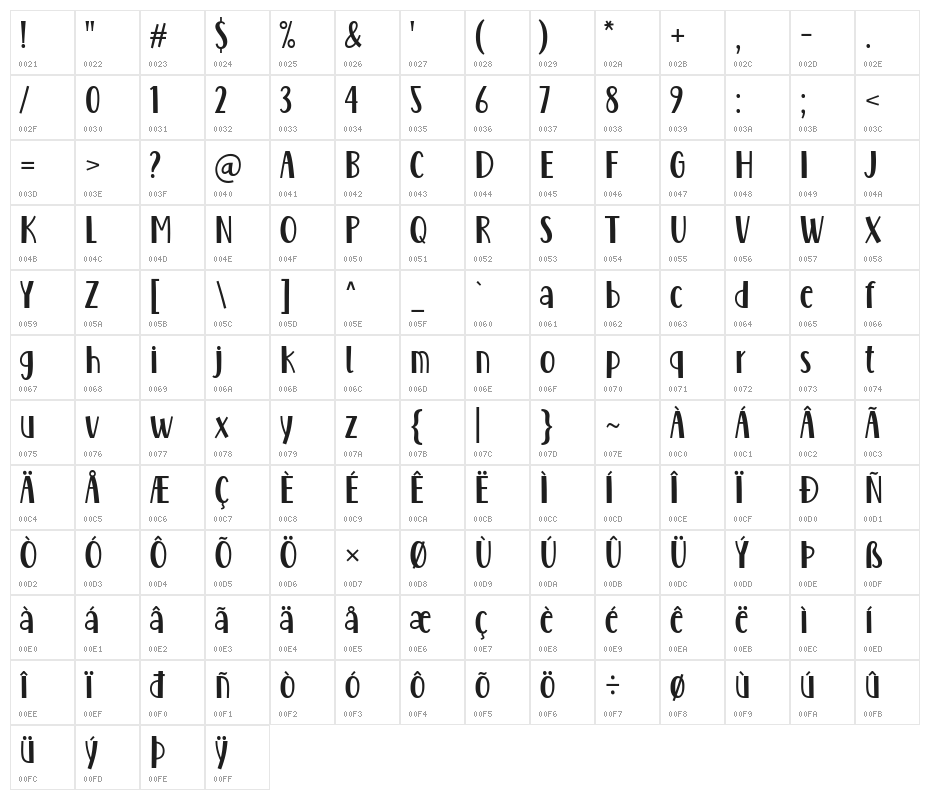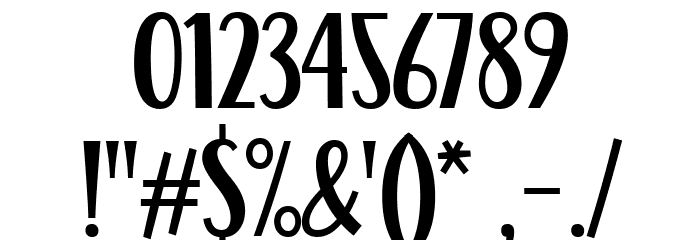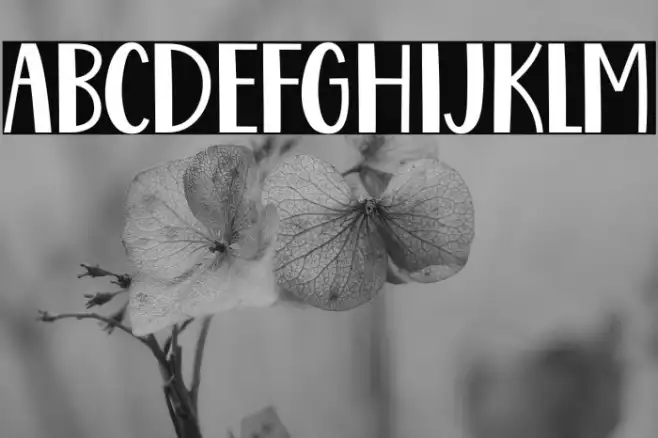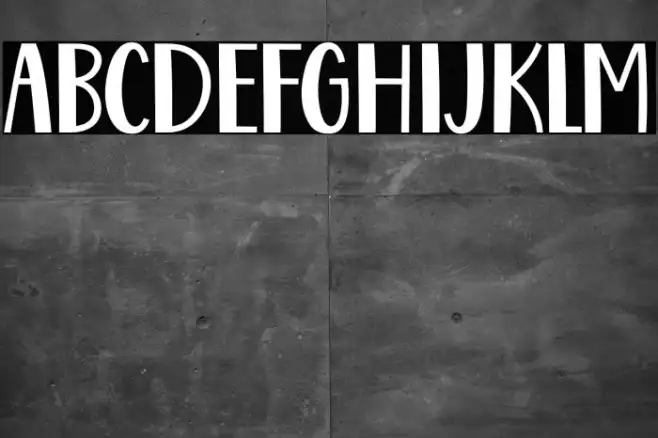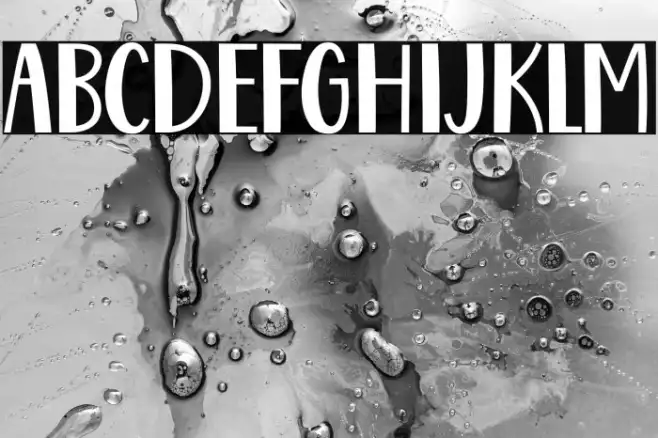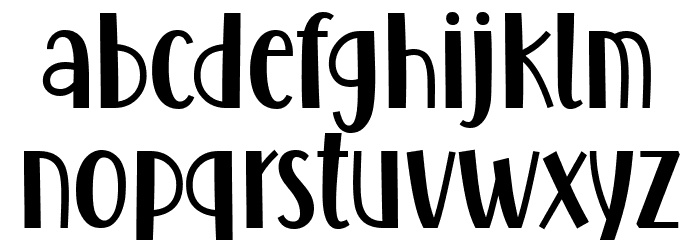
Maybe Yes Font
Maybe Yes Description
This font features a playful and dynamic style with a unique blend of curves and straight lines. The uppercase letters are tall and slightly narrow, giving them an elegant yet approachable appearance. The lowercase characters maintain a consistent flow, with rounded edges that add a touch of whimsy. Numbers are clear and legible, matching the overall aesthetic. Special characters are creatively designed, maintaining the font's distinctive personality. This font is perfect for projects that require a fun and engaging look.
| Proposed Projects | Ideal for children's books, playful branding, posters, and creative invitations. |